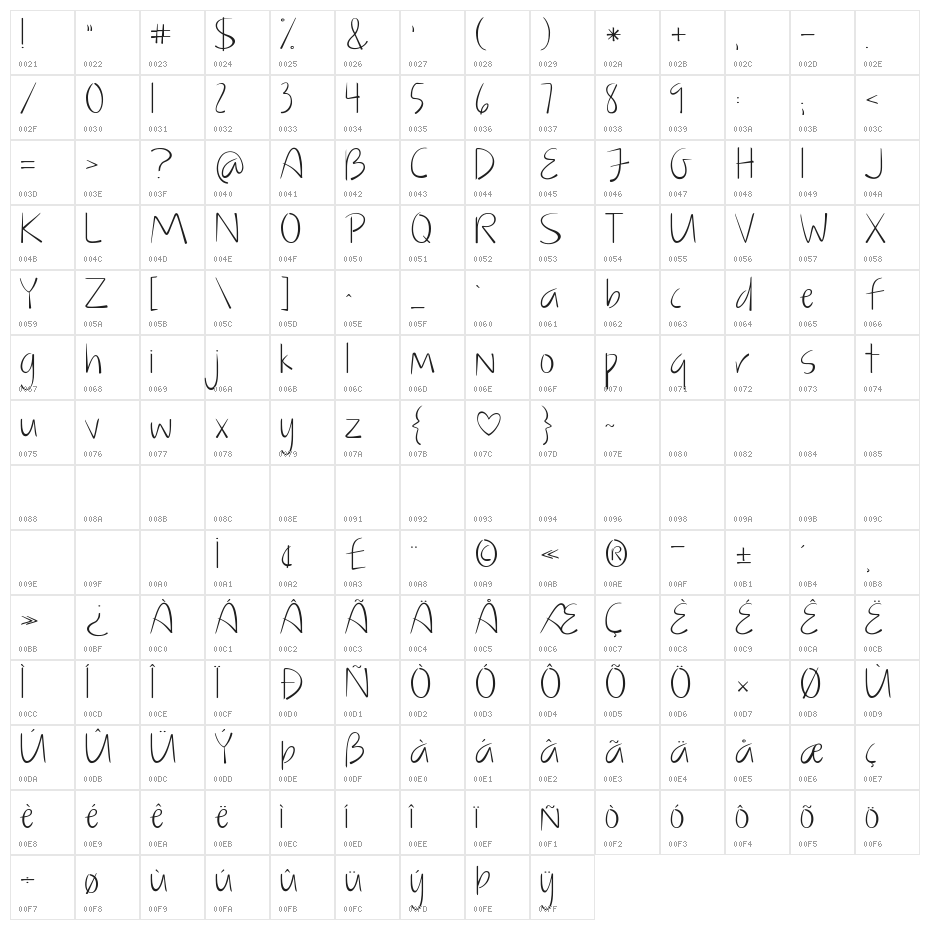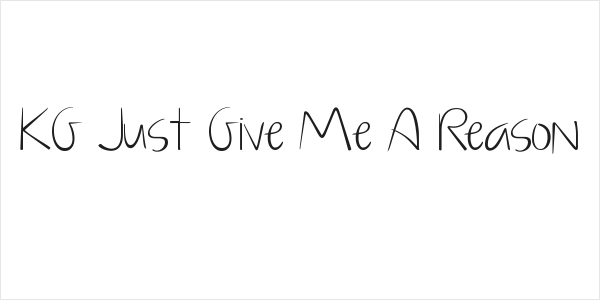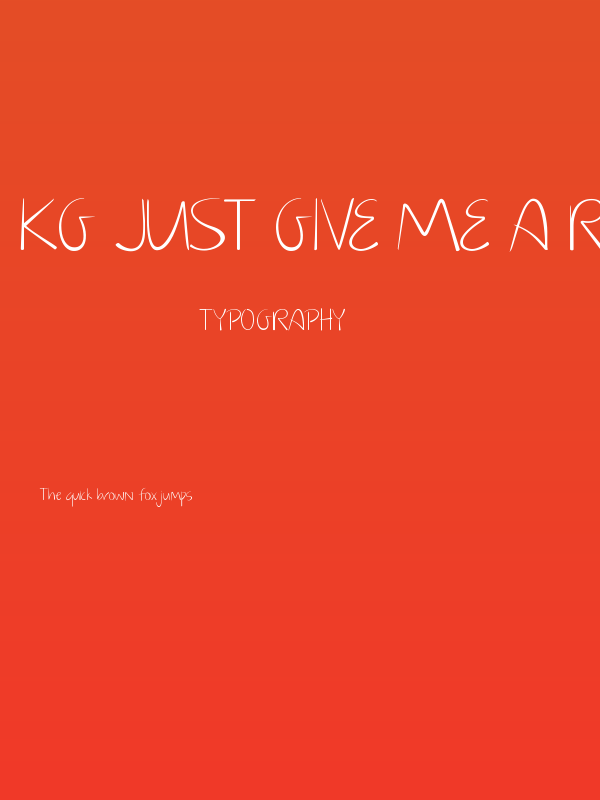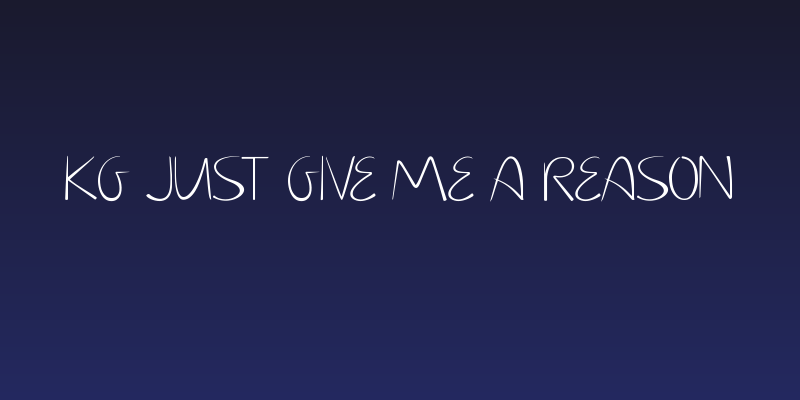
KG Just Give Me A Reason Font
KG Just Give Me A Reason Description
This font features a playful and whimsical style, characterized by its tall, narrow letterforms and slightly irregular strokes. The uppercase letters are distinct with elongated verticals and subtle curves, giving a sense of movement and energy. The lowercase letters maintain a consistent flow, with some characters having unique loops and swirls that add to the font's charm. Numbers and special characters are crafted with the same lively spirit, making them stand out while remaining cohesive with the overall design. This font's hand-drawn appearance lends it a personal and approachable feel, perfect for projects that require a touch of creativity and warmth.
| Proposed Projects | Ideal for children's books, greeting cards, playful branding, and creative posters. |